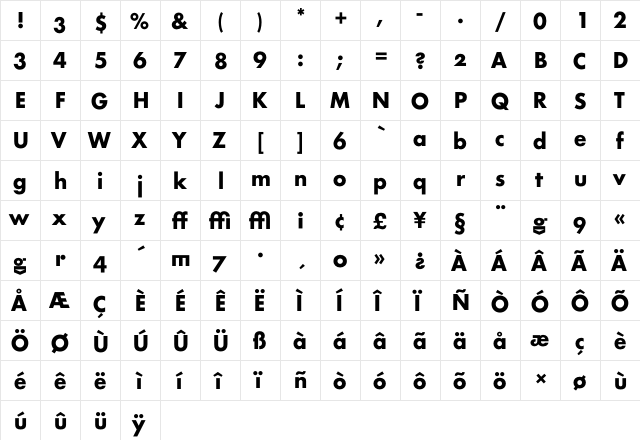
RennerBold ArchiType
Design Context for RennerBold Typeface
RennerBold is a composed and adaptable typeface that performs quietly and consistently across a wide range of design contexts. Its bold stroke weight gives it real presence on the page.
Pro Tip: Pair RennerBold with a font of contrasting weight or personality to build a more expressive typographic hierarchy.